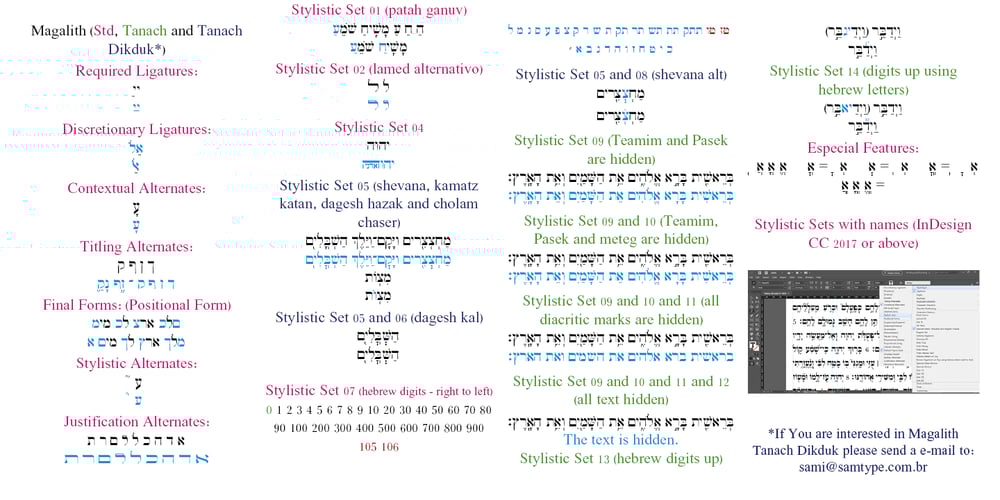
Magalith Font Family was designed by Sami Artur Mandelbaum and published by Samtype. Magalith contains 4 styles and family package options. This hebrew typeface is inspired in prayer books from the beginning of the XX century.Even in this Std version You can apply modern hebrew marks like Kamats Katan, Sheva Na, Dagesh Chazak and Cholam Chaser.It’s a classic style with the most modern of a digital font technology and a easy lecture.The Caption versions is ideal for small size of texts and footnotes.